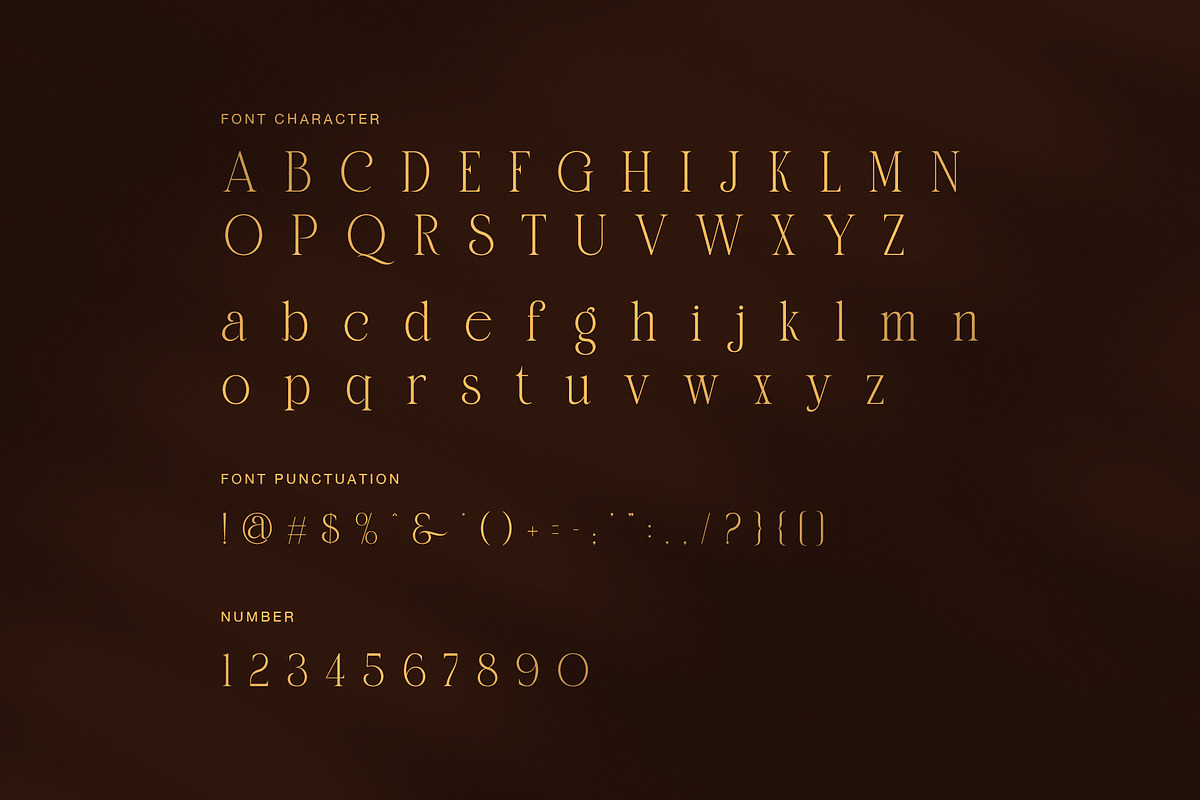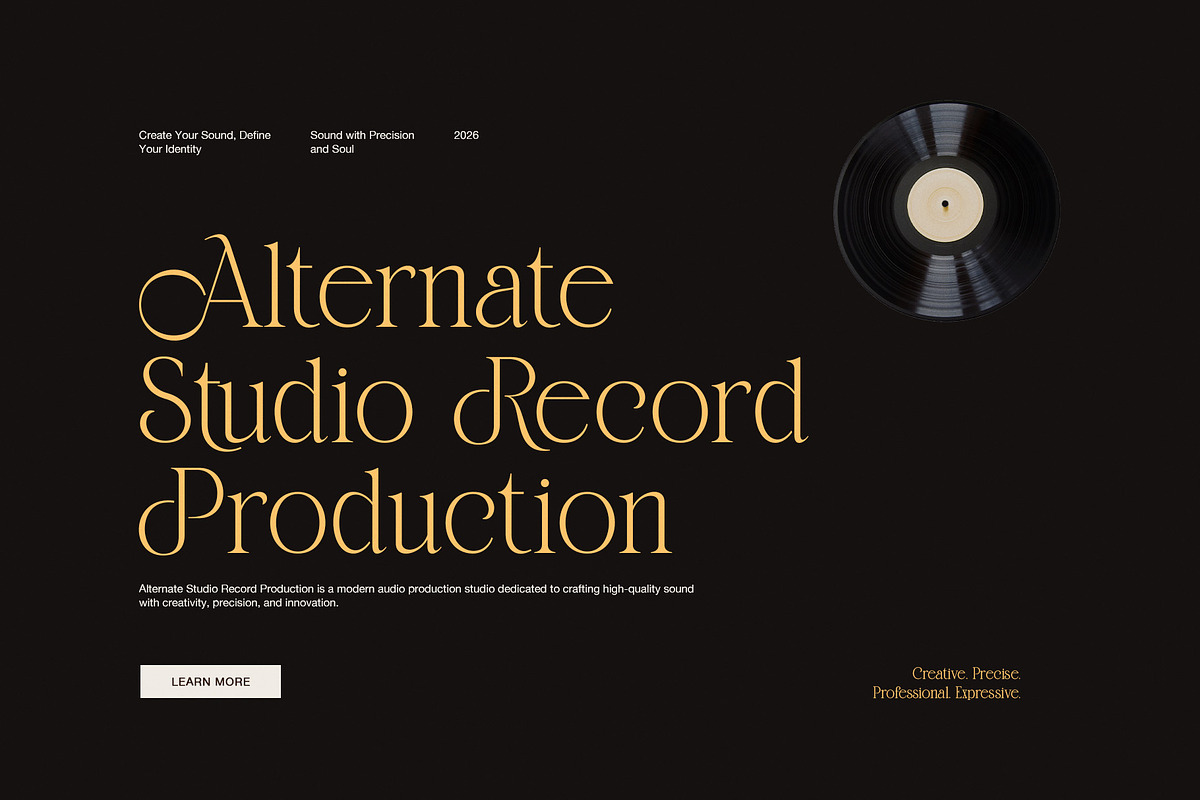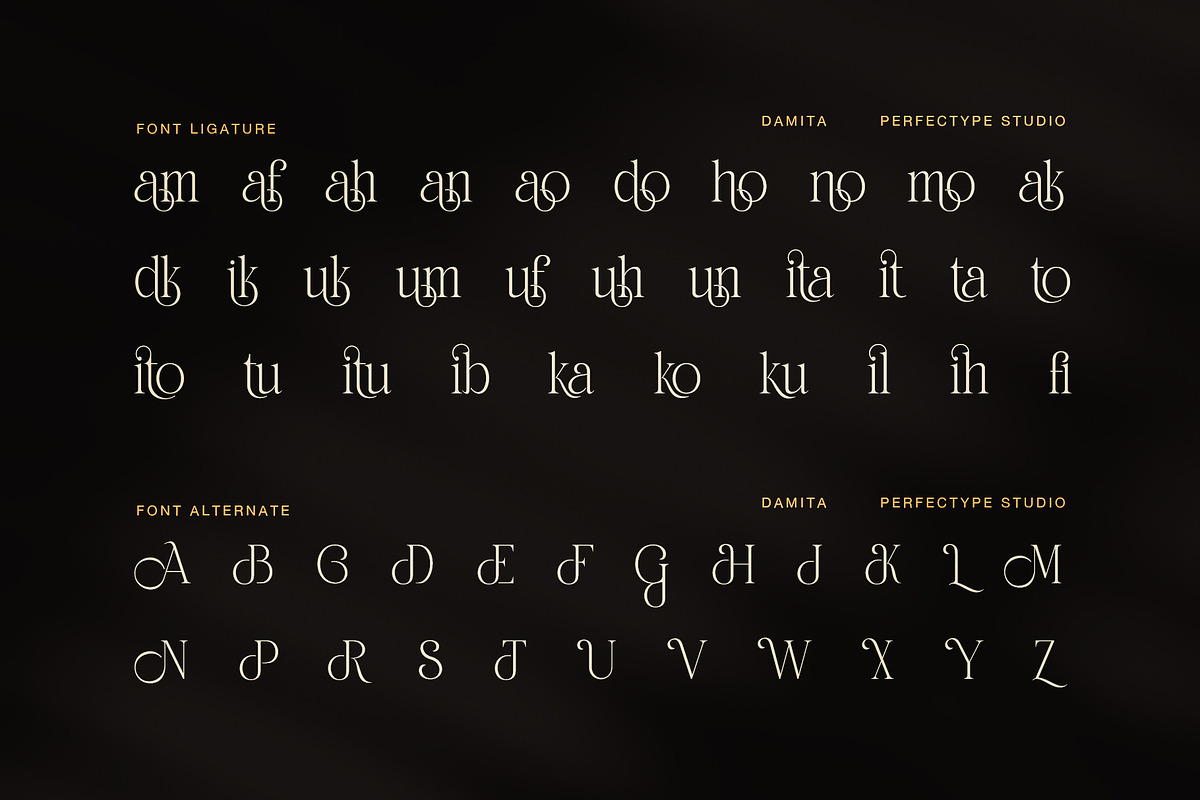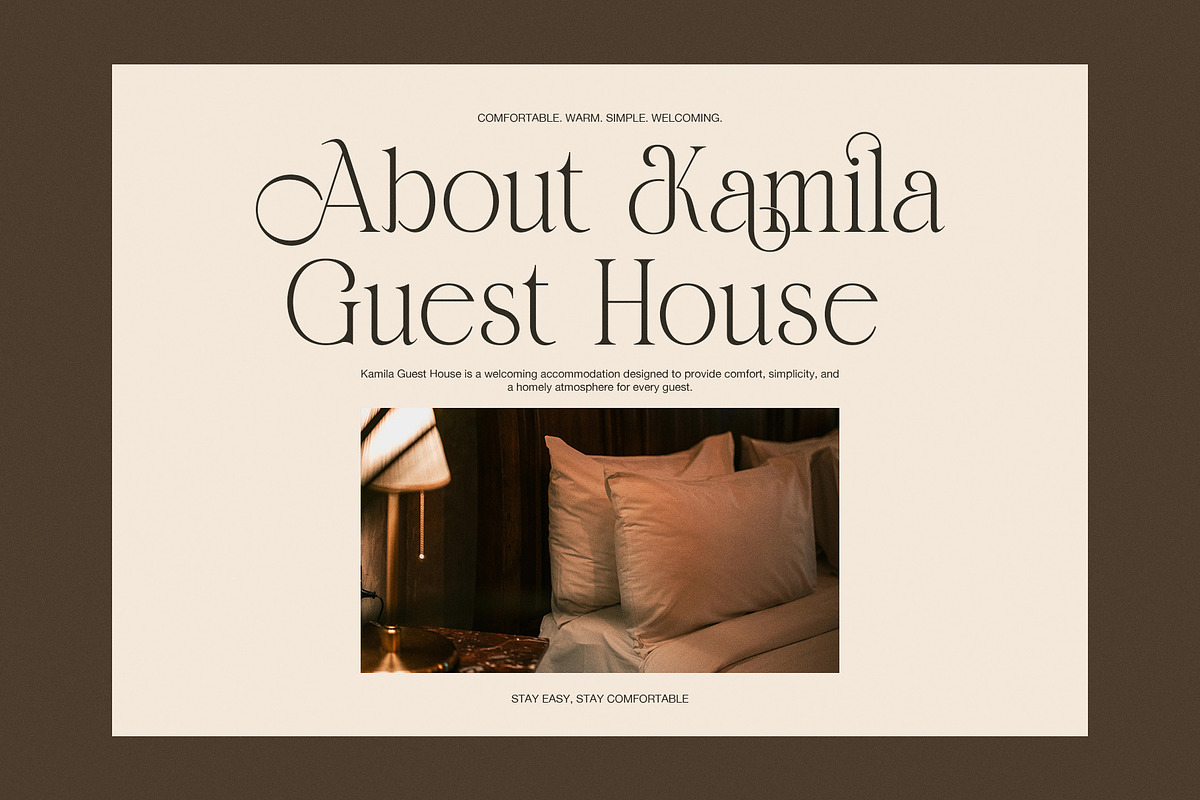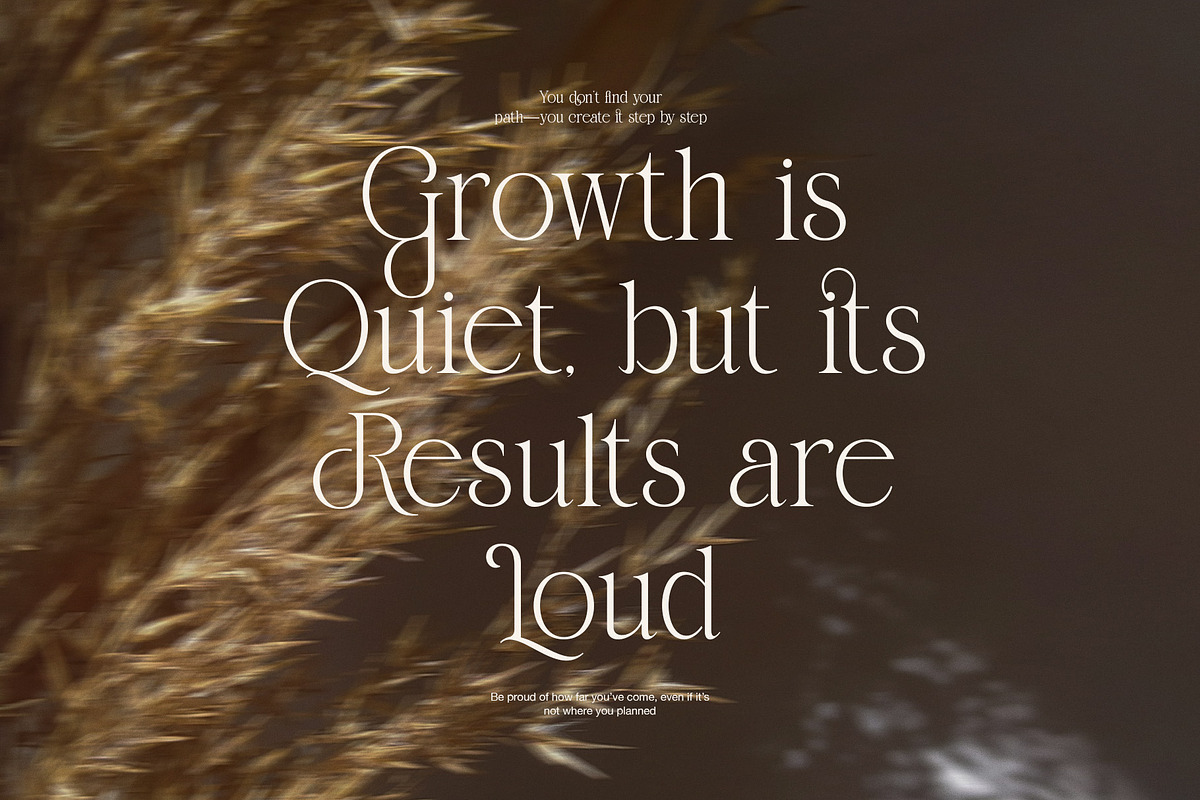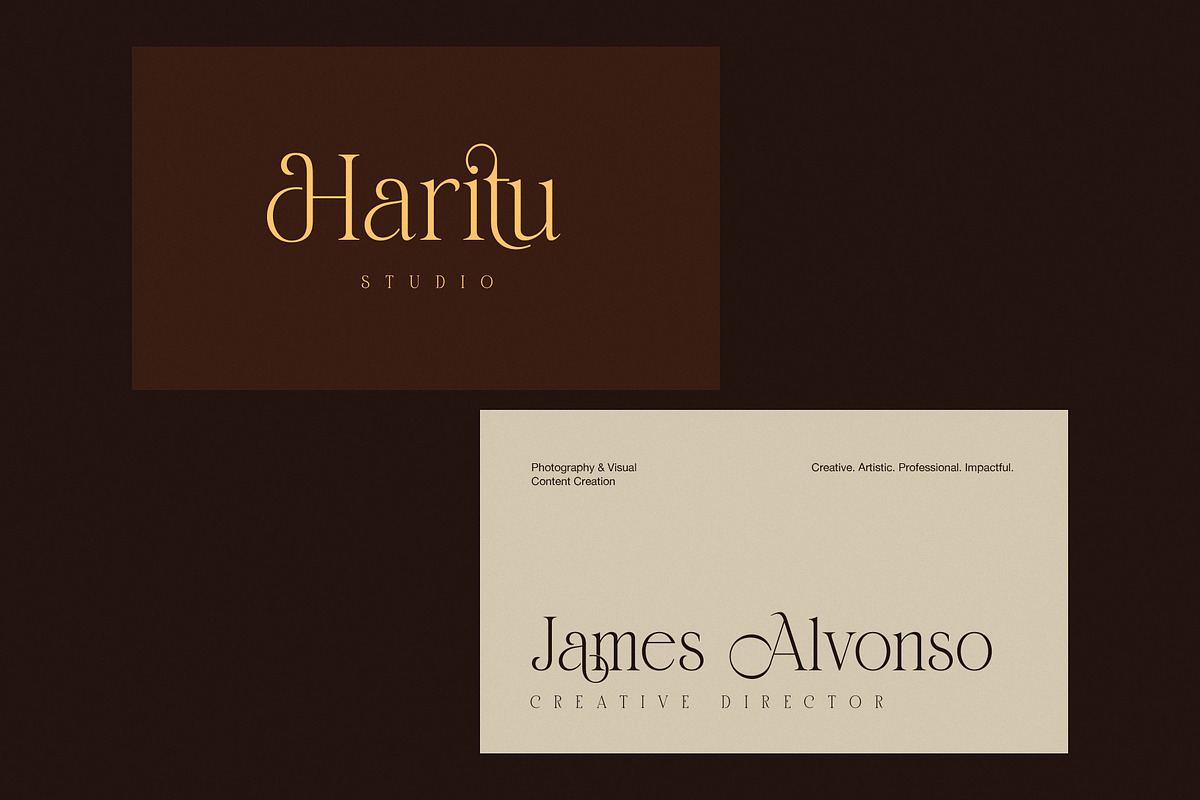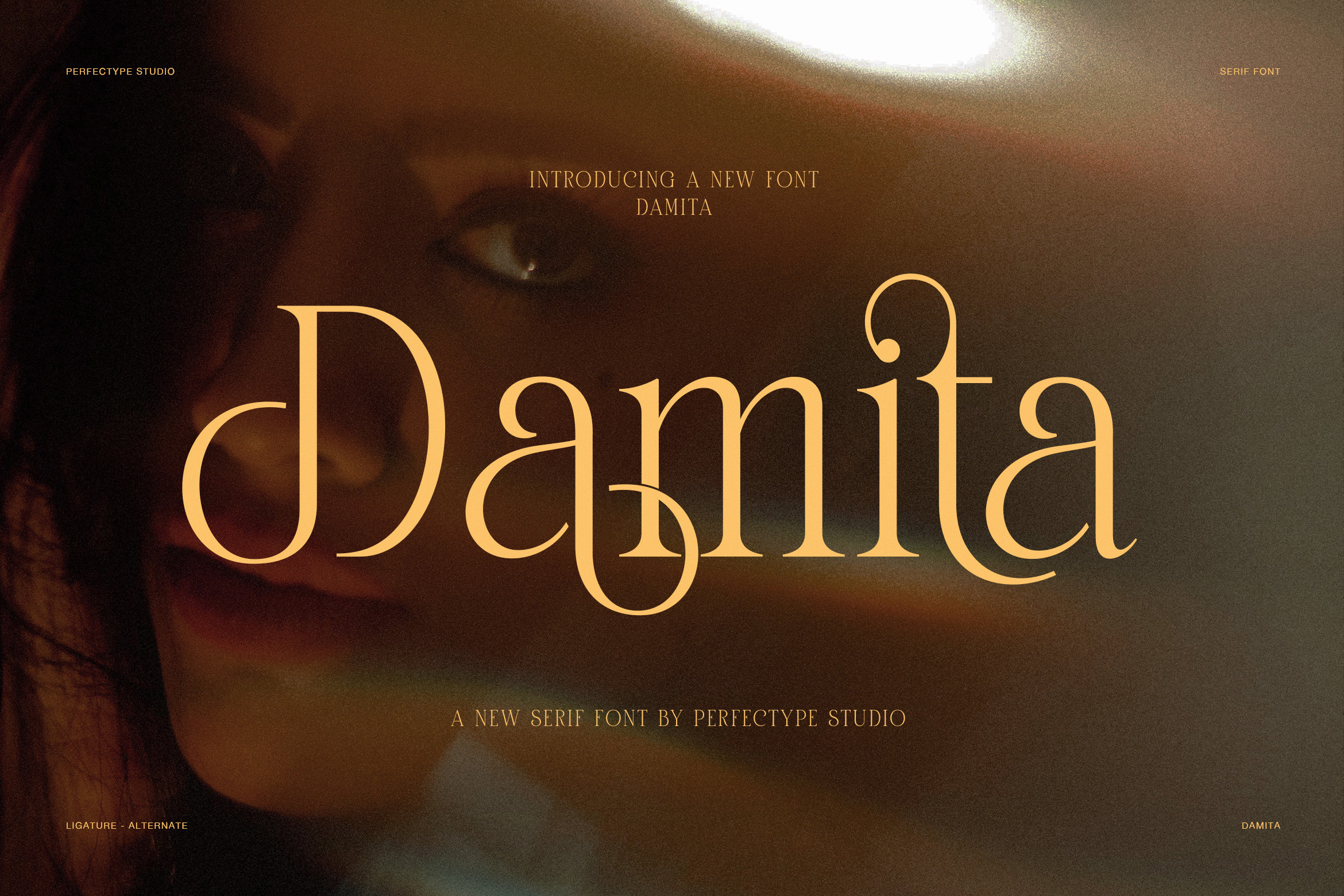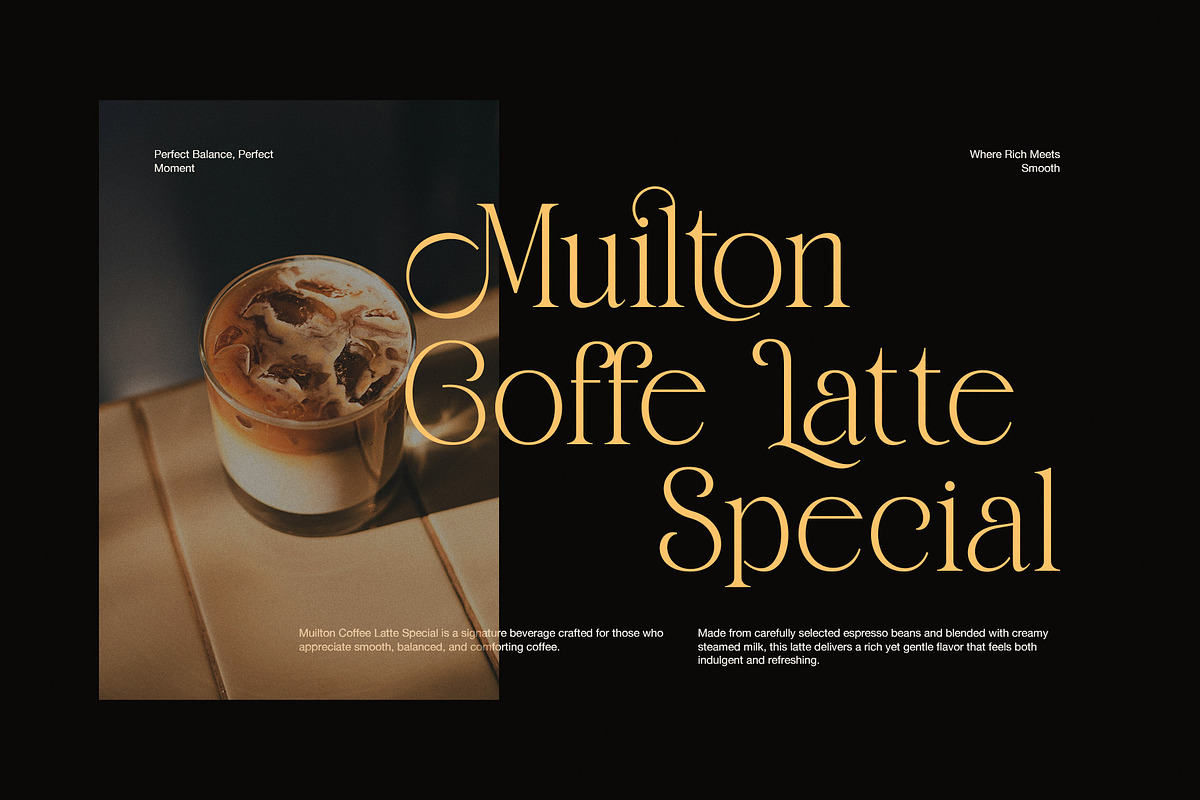
Damita Elegant Serif Display Font
Damita is an Elegant Serif Display Font created for designers who want refined typography with artistic personality. Inspired by luxury branding, fashion editorials, and timeless typography, this typeface combines graceful serif structures with expressive alternates and decorative ligatures. As a result, every headline, logo, and visual identity gains a sophisticated appearance while remaining clean and highly readable.
The letterforms feature slender proportions, soft contrast, and flowing curves that bring warmth and elegance to every composition. In addition, Damita includes beautifully crafted ligatures and alternate characters that transform ordinary text into premium typography. These stylistic details allow designers to create distinctive branding without spending extra time customizing every letter.
Damita performs beautifully across both digital and printed media. Whether you are designing a luxury logo, boutique branding, editorial magazine, café identity, wedding invitation, cosmetic packaging, or lifestyle content, this font delivers a graceful balance between classic elegance and contemporary style. Furthermore, its refined construction makes every layout feel polished and memorable.
Unlike traditional serif fonts, Damita introduces decorative flourishes with restraint. Therefore, the typography remains professional while adding unique visual character. The elegant alternates also provide greater creative freedom, allowing every design to feel custom and exclusive. Because of this flexibility, the font is suitable for premium businesses, creative agencies, photographers, interior designers, and personal branding projects.
Moreover, Damita offers balanced spacing and carefully refined letterforms that maintain clarity in both large headlines and medium-sized titles. Consequently, designers can build cohesive branding systems with confidence. The decorative ligatures create natural visual flow, while the alternate characters introduce additional elegance without reducing readability.
If you are searching for a serif display font that combines luxury, creativity, and versatility, Damita is an outstanding choice. It helps every design communicate confidence, beauty, and professionalism. From premium logos and editorial layouts to sophisticated packaging and modern branding, Damita delivers timeless typography with refined details that continue to look elegant across every creative project.